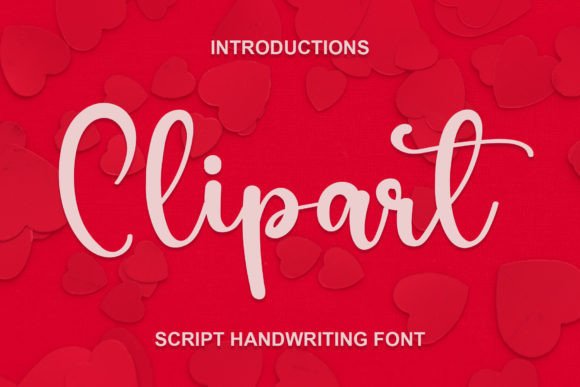
Prepare to be captivated by Clipart, a script font family that oozes elegance and sophistication. Its meticulously crafted characters, inspired by the enduring charm of classic calligraphy, exude a timeless allure that will elevate your designs to new heights.
With its balanced strokes and captivating curves, Clipart effortlessly adds a touch of refinement to business documents, social media posts, and creative projects alike. Its versatile nature allows it to seamlessly adapt to a wide range of styles, from formal and traditional to modern and whimsical.
Indulge in the creative freedom that Clipart offers. Its captivating design sparks imagination and invites you to explore endless possibilities. Imagine the impact your business documents will make when adorned with Clipart's graceful lines. Envision the engagement your social media posts will generate as Clipart's timeless charm captivates your audience. Picture the admiration your creative projects will attract as Clipart's beauty takes center stage.
Step into a world of creativity and distinction with Clipart. Its timeless elegance and versatility make it the perfect choice for those seeking to leave a lasting impression. Download Clipart today and embark on a journey of artistic expression that will redefine your designs.